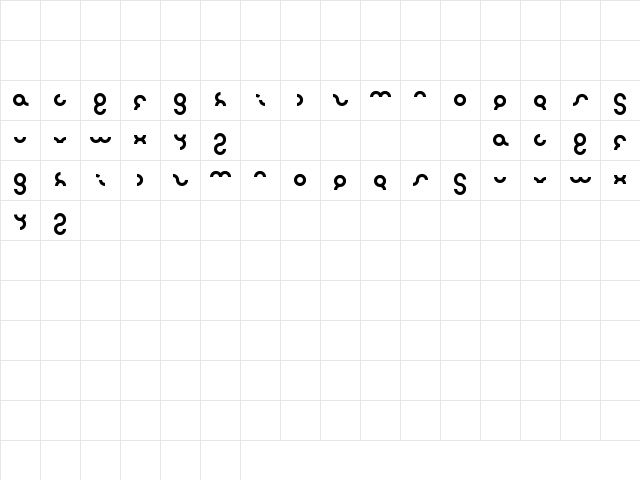
noakatz Regular Free Font
noakatz Regular
Design Context for noakatz
noakatz is a composed and adaptable typeface that performs quietly and consistently across a wide range of design contexts.
Pro Tip: Use noakatz in both headline and body roles to test its range before committing to a single application.